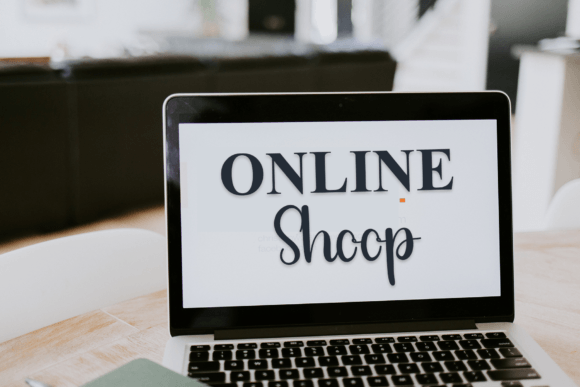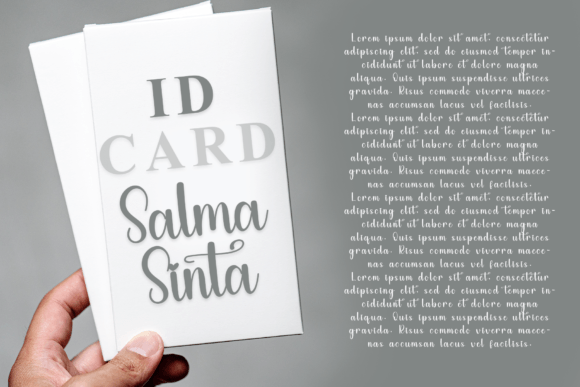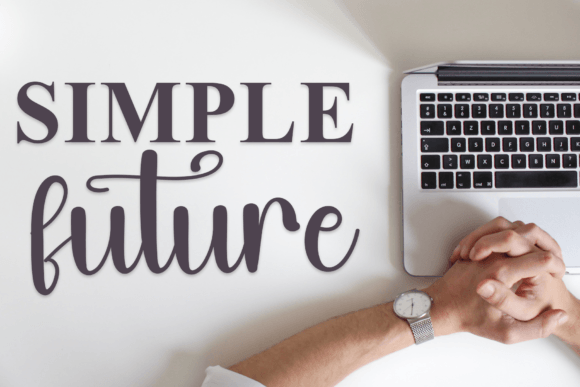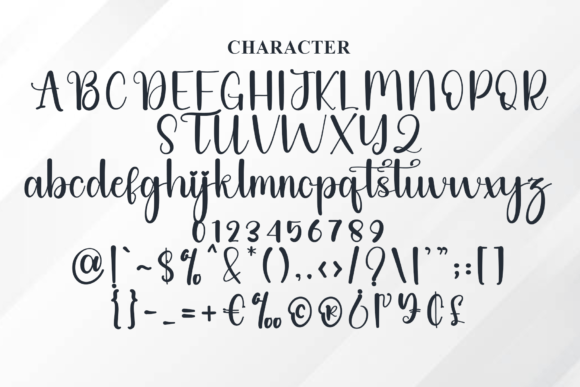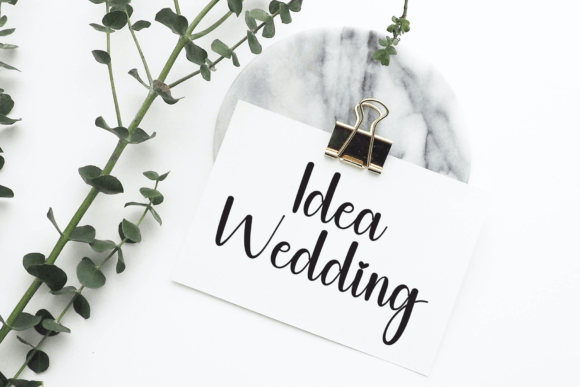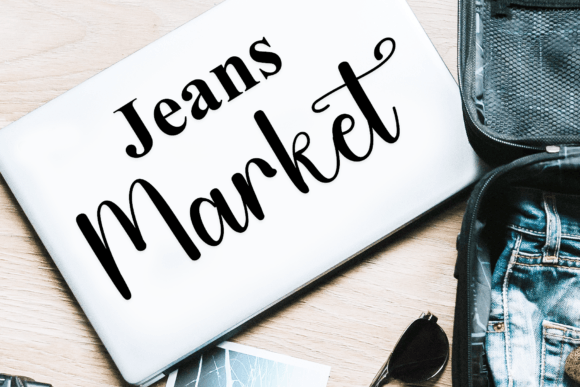
Deck the Halls with Biscuits Font
As the holiday season approaches, I find myself rummaging through my stash of festive decorations and wrapping paper, reminiscing about the joy and magic of the season. And what’s a holiday celebration without a dash of creativity? For designers, the holiday season is the perfect opportunity to unleash their imagination and bring cheer to their loved ones through thoughtful gifts and personalized cards.
Enter the Biscuits Font, a delightful and charming typeface that embodies the spirit of the holiday season. With its decorative elements and unique flair, this font adds a touch of whimsy to your designs, making it perfect for greeting cards, gift labels, and holiday-themed projects. As a valuable resource for designers, the Biscuits Font offers a wide range of glyphs and ligatures, easily accessible through its PUA coding.
Biscuits Font Key Features
- Size: The font includes 6 weights (Thin, Light, Regular, Medium, Bold, Black) and 2 styles (Regular and Italic) to provide versatility in typography.
- Unique Characteristics: The font features a unique blend of modern and vintage elements, with intricate details and textures that give it a distinctive look.
- Language Support: Biscuits Font supports a wide range of languages, including Latin-based languages, Cyrillic, and Greek, making it suitable for use in multilingual applications.
- Customization Options: The font includes a range of OpenType features, such as ligatures, swashes, and ornaments, that can be used to add creative flair to designs.
Biscuits Font Review
I recently had the chance to dive into the Biscuits Font, and I’m excited to share my honest thoughts with you. Overall, I think it’s a charming font that’s perfect for adding a touch of warmth and coziness to your designs. ✨
- Unique and quirky character set that’s sure to stand out
- Captures a sense of nostalgia and whimsy
- Works beautifully for titles, headings, and even body text
However, I do have some concerns:
- Some of the characters might be a bit too cursive or ornate for certain projects ⚠️
- May not be the best choice for small text sizes, as it can become difficult to read
- Could benefit from a more comprehensive character set, including more punctuation and special characters
Overall, I think the Biscuits Font is a great addition to any designer’s toolkit, but it’s essential to be mindful of its limitations. With careful use, it can add a delightful touch to your designs. I’d recommend it for projects that need a playful, vintage vibe, but be sure to test it thoroughly before committing to a large-scale project.
Tips for Getting the Most Out of Biscuits Font
Use Biscuits Font for playful and creative projects, such as children’s birthday invitations or food labels.
Combine Biscuits Font with other fun fonts for a unique and eye-catching design.
Experiment with different font sizes and styles to create a visually appealing design.
Biscuits Font is perfect for:
Children’s party invitations and decorations
Food labels and packaging
Playful advertising and marketing materials
Alternatives to “Biscuits Font” for Designers
Biscuits Font is a popular font known for its elegant and modern look. However, it may not be suitable for all designs. Here are a few alternatives that designers can consider.